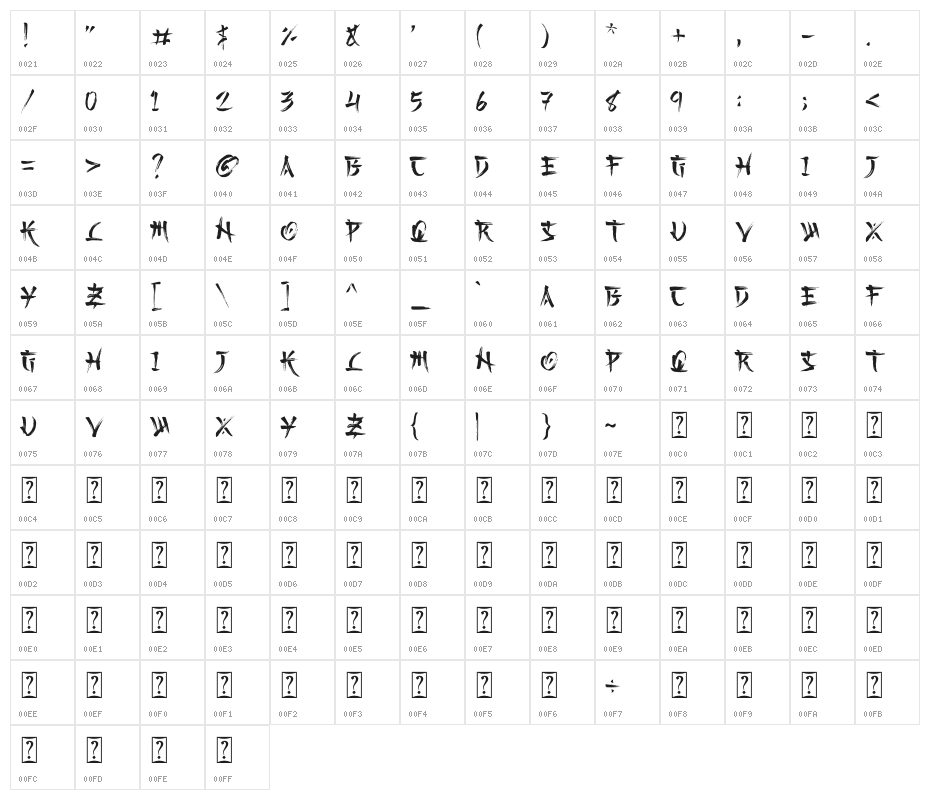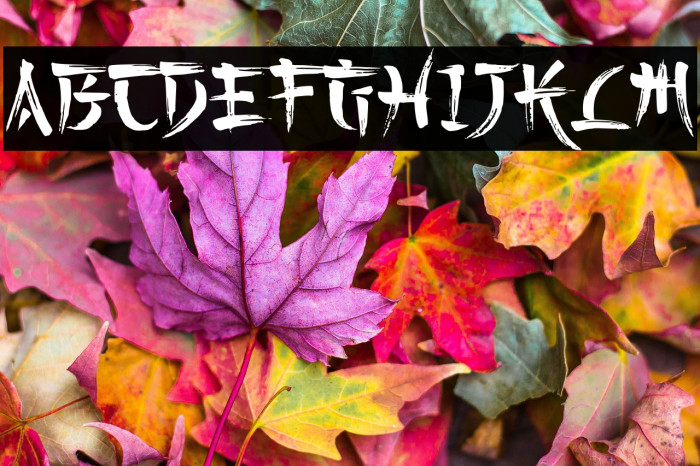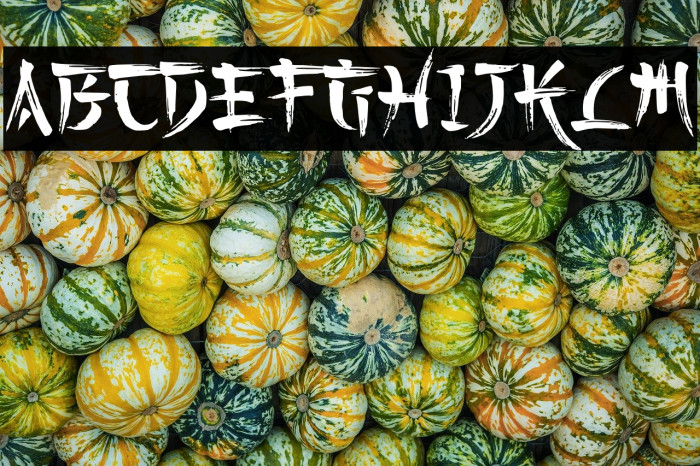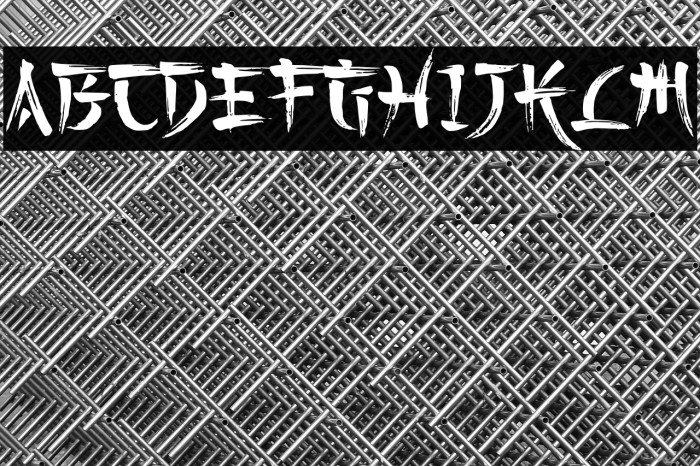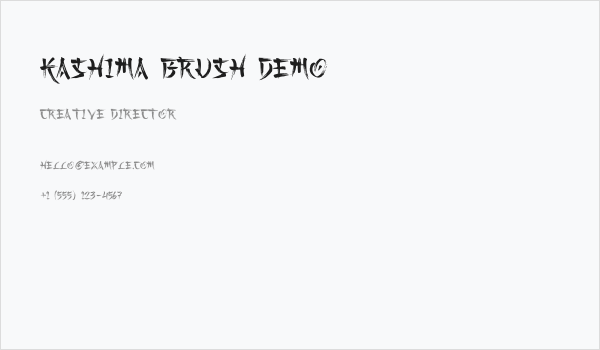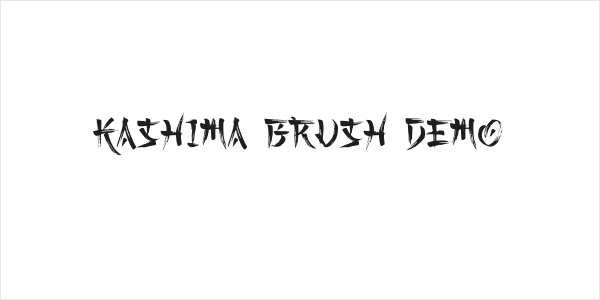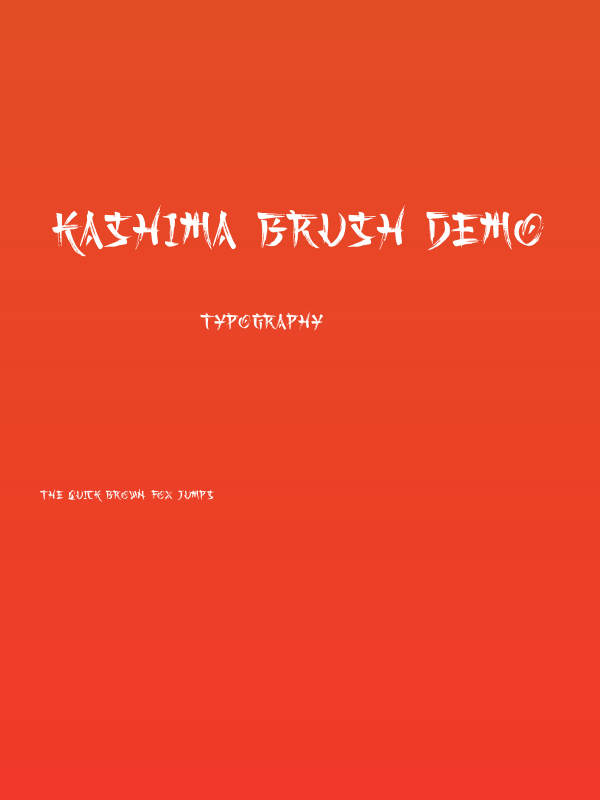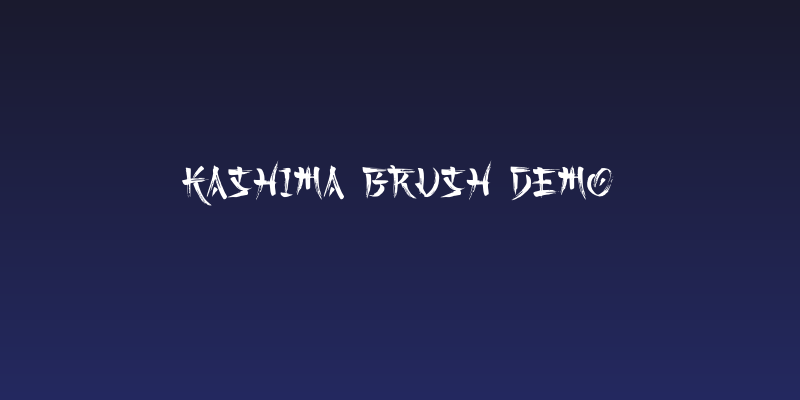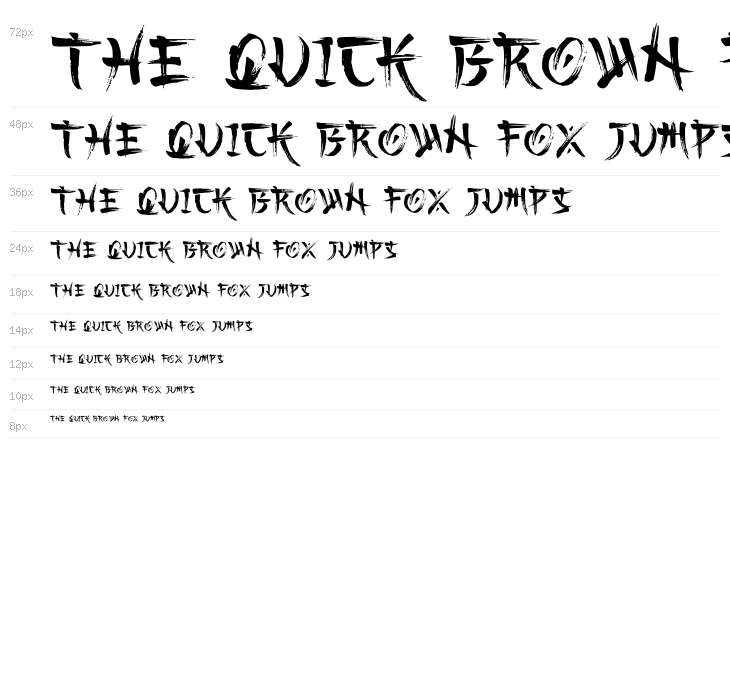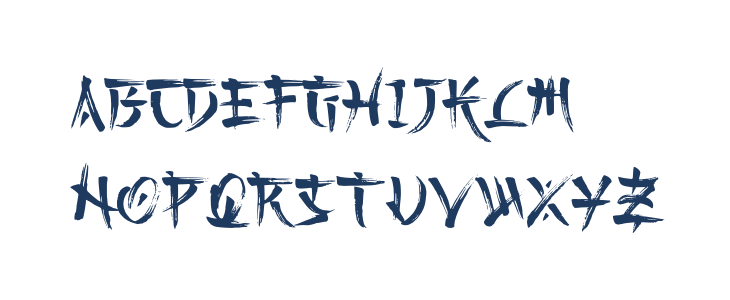
Kashima Brush Demo Font
Kashima Brush Demo Description
This font features a dynamic and energetic brush style, characterized by bold, sweeping strokes that convey a sense of movement and fluidity. The letters are crafted with a rough, textured appearance, giving them an artistic and hand-painted feel. The uppercase and lowercase letters maintain a consistent style, with sharp angles and varying stroke widths that add to the overall expressive nature of the font. Numbers and special characters are designed with the same brush-like quality, ensuring a cohesive look across all elements. This font is ideal for projects that require a bold and artistic touch, such as posters, branding, and creative designs.